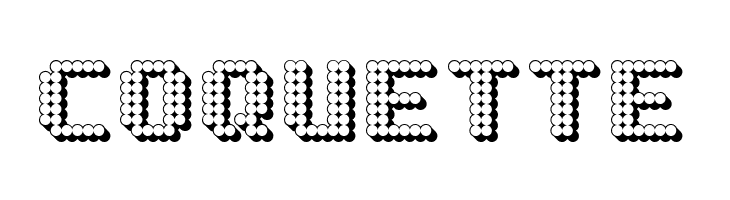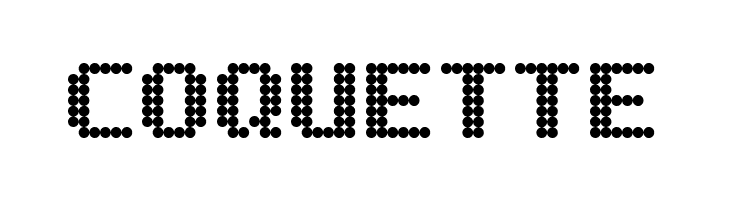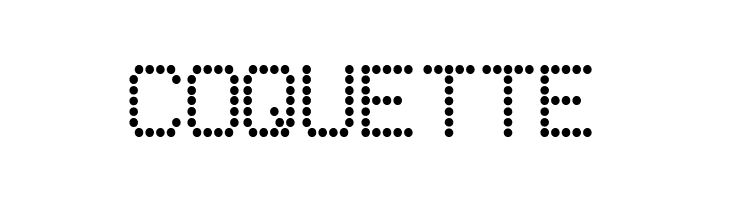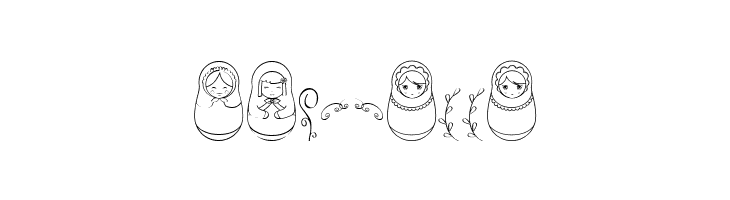
A whimsical and decorative font with curly, playful elements.
A playful dingbat font with matryoshka dolls and floral ornaments.
A 3D dot matrix font with a futuristic and digital aesthetic.
A dot-matrix style font with a modern, digital appearance.
A modern, dot-based font with a playful, digital aesthetic.